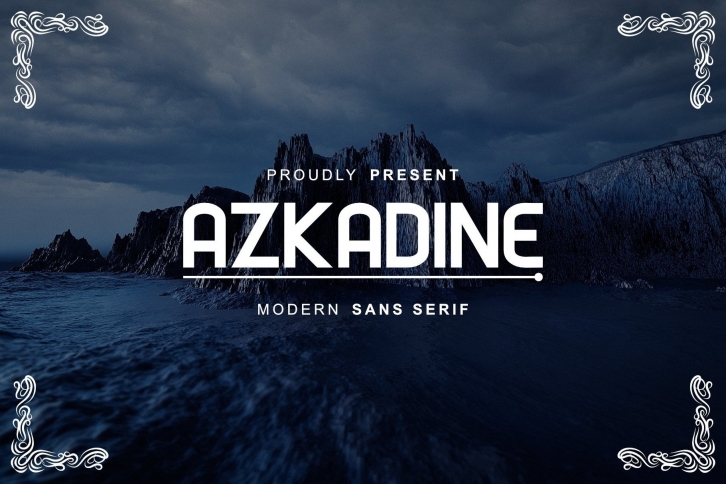
Azkadine is a casual sans that is the perfect combination of strength and playfulness. This clean vibe can easily apply to your favorite designs such as book covers, magazines, social media posts, invitations, and so much more.